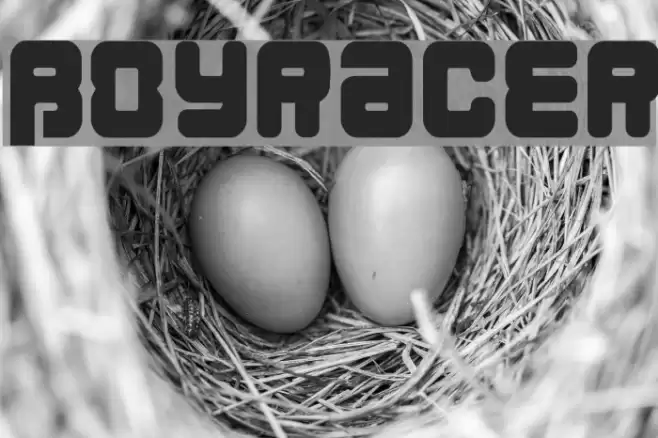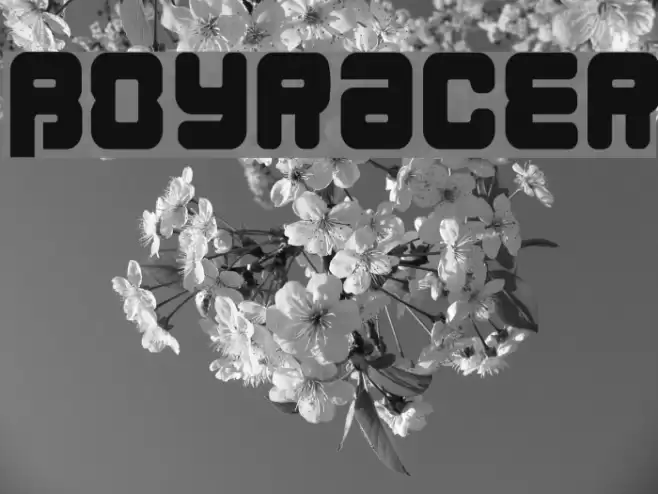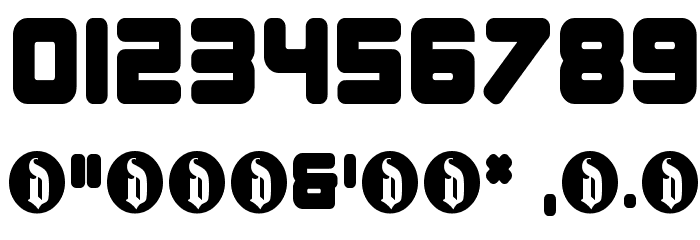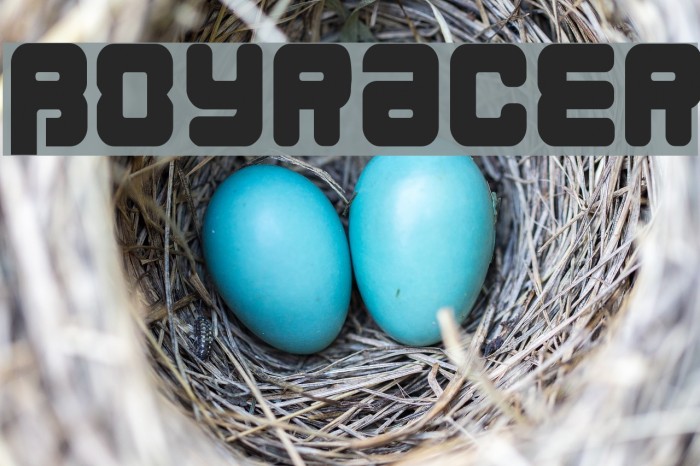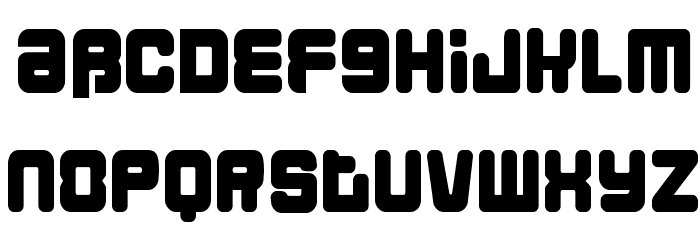
BoyRacer Font
BoyRacer Description
This font features a bold, rounded style with a futuristic and playful appearance. The characters are uniformly thick, giving them a strong presence. The rounded edges and consistent stroke width contribute to a modern and approachable look. The letters are slightly condensed, which enhances readability while maintaining a unique aesthetic. The numbers and special characters follow the same design principles, ensuring a cohesive appearance across all glyphs. This font is ideal for projects that require a bold statement and a touch of modernity.
A bold, rounded font with a futuristic and playful style from Uncategorized fonts.